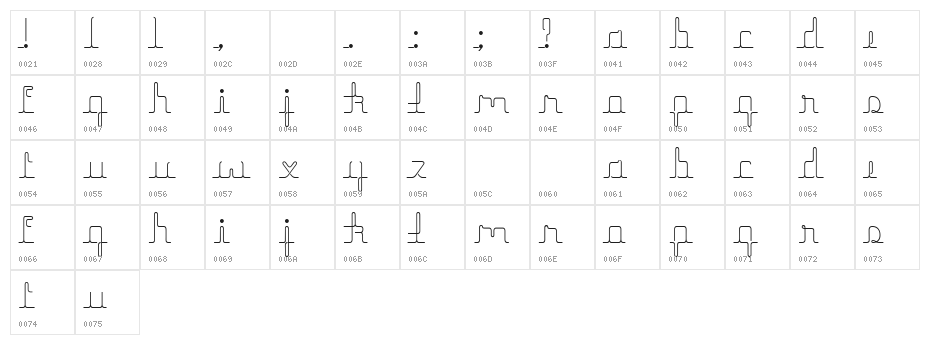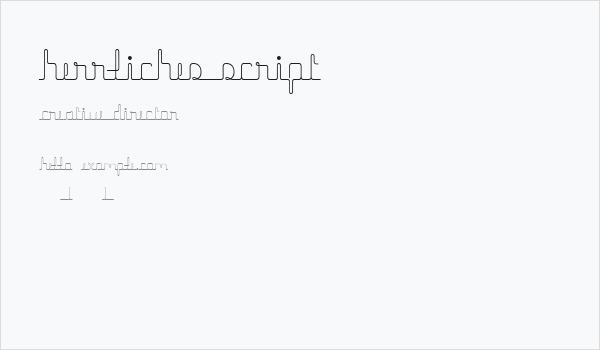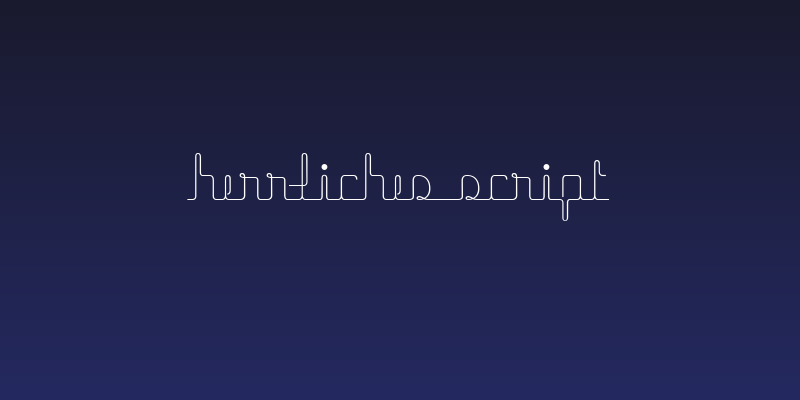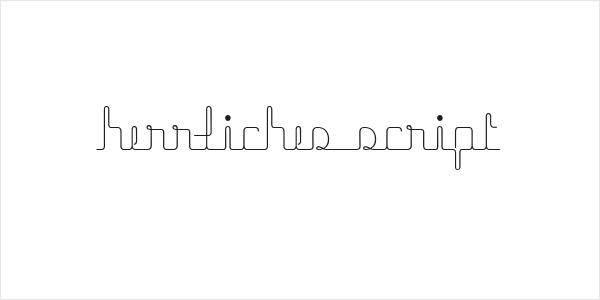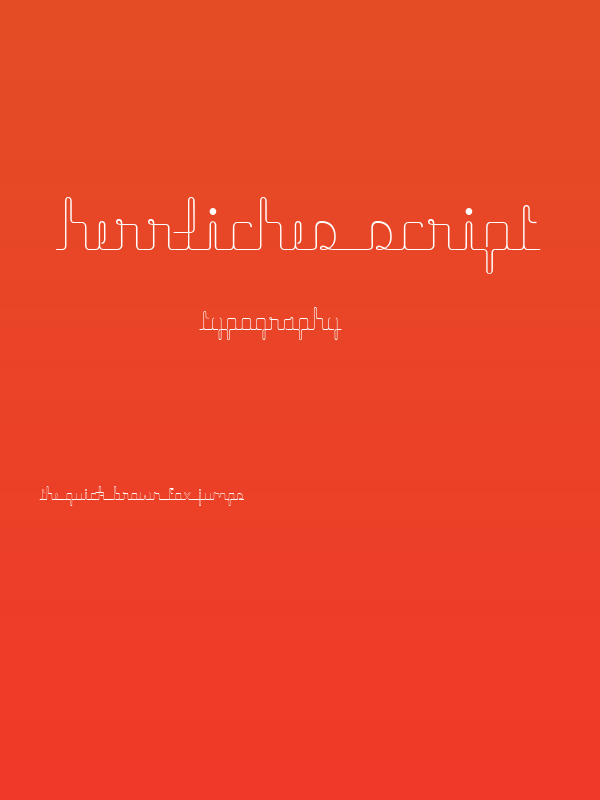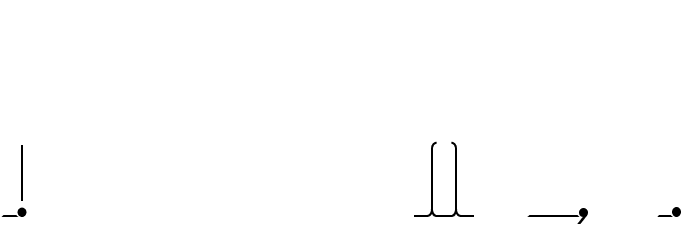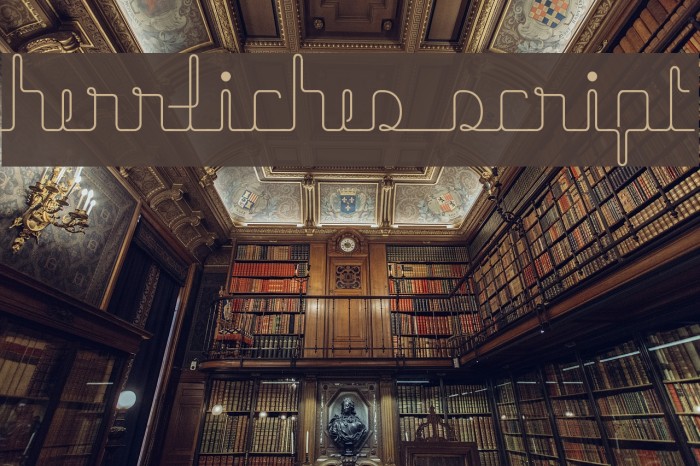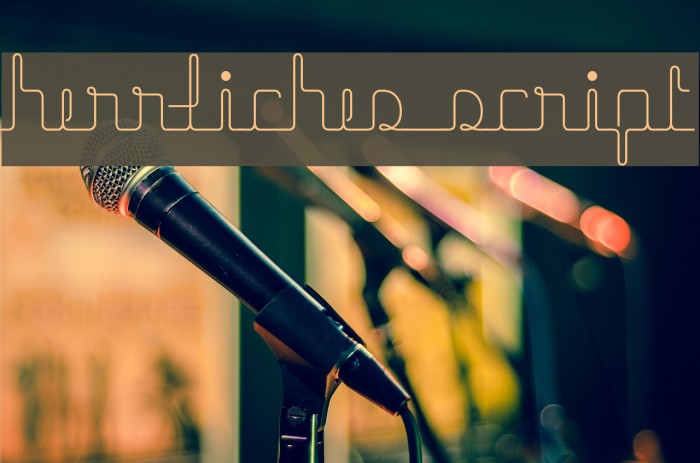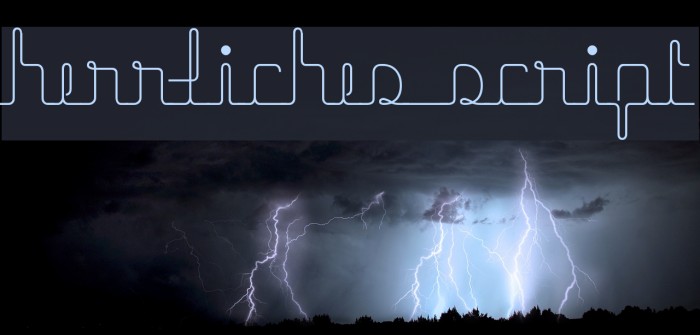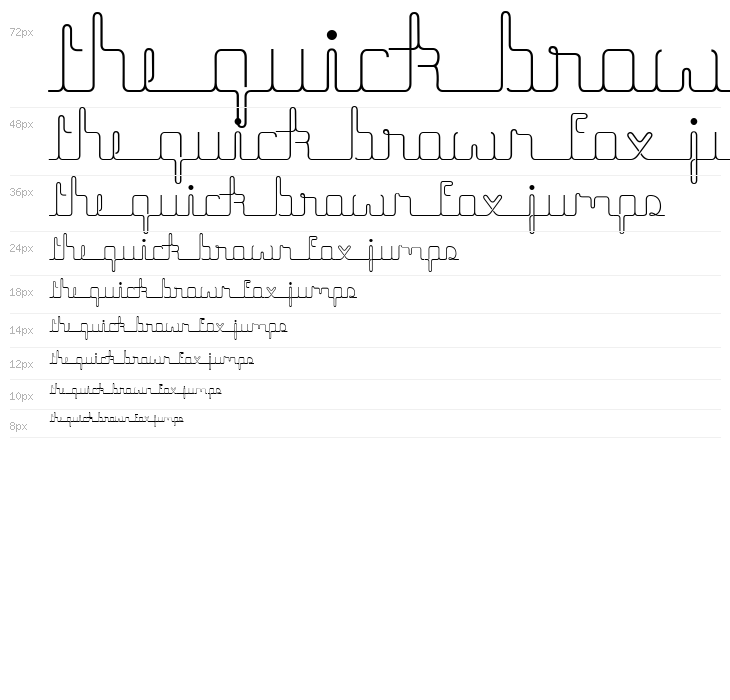
herrliches script Font
herrliches script Description
This font exhibits a unique and modern design with a continuous, flowing line that forms each character. The letters are interconnected, creating a seamless and cohesive look. The style is minimalist, with a geometric influence that gives it a contemporary feel. The characters are evenly spaced, maintaining a consistent line weight throughout. This font stands out due to its innovative approach to letter formation, making it ideal for creative and artistic projects. The overall appearance is clean and sophisticated, with a touch of elegance that enhances its visual appeal.